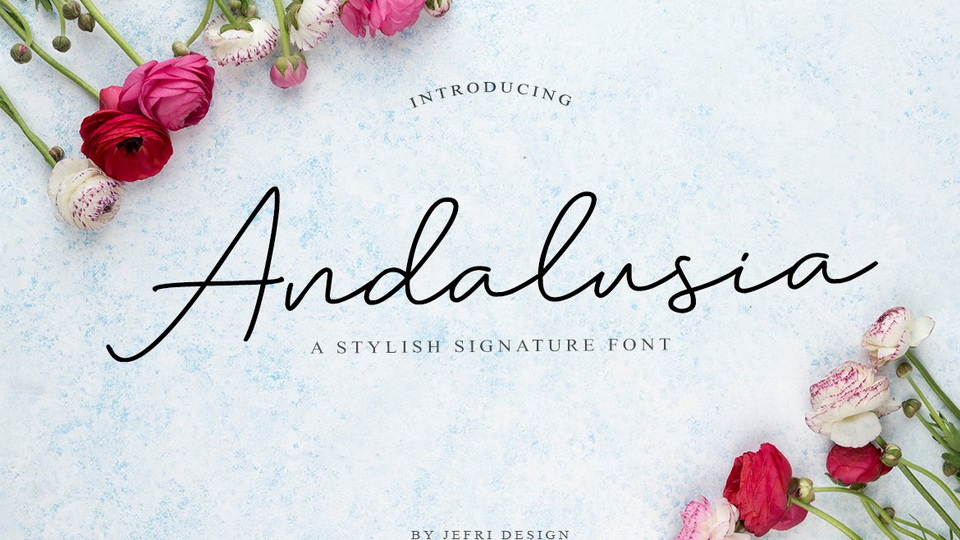
Download Andalusia font, a sweet and simple script typeface with a romantic feel. Andalusia font is suitable for use with signatures, logos, magazines, quotes, fashion, watermark, invitation.